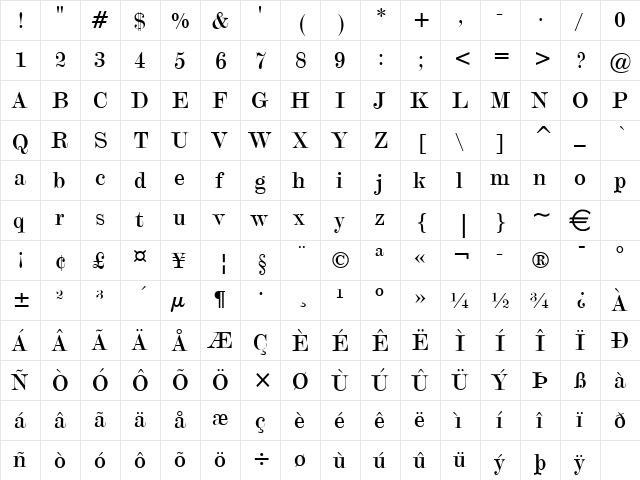
Update20 Normal
Design Context for Update20 Typeface
Update20 takes a measured approach to typography — its balanced proportions and neutral character make it a reliable workhorse for both digital and print work.